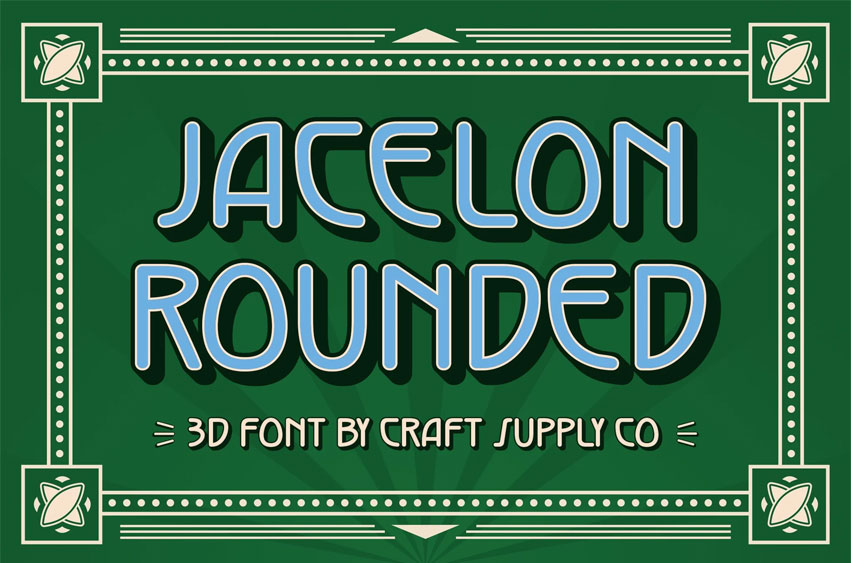
Jacelon Rounded Font
Jacelon Rounded Font Art Deco Inspired with Rounded, Geometric Elegance. Jacelon Rounded 3D is a modern sans-serif display font that blends the classic sophistication of Art Deco with smooth, rounded, geometric forms. The sharp lines of the Art Deco influence combined with the soft curves and rounded edges create a distinct contrast, offering a contemporary and chic appearance.
Dynamic 3D Effect for Added Dimension The 3D effect applied to each character in Jacelon Rounded 3D enhances its visual depth and impact. This dynamic feature gives the font a captivating presence, making it stand out in any design. The added dimension elevates its aesthetics, giving it a bold, sophisticated appeal while maintaining a modern, clean look.
Versatile, Stylish, and Contemporary. With its perfect blend of geometric precision and rounded softness, this art deco font is a highly versatile font that can be used in a variety of design projects. It combines vintage appeal with futuristic minimalism, making it a perfect choice for both retro-inspired and modern designs.
Ideal for Creative Branding and Dynamic Designs, Jacelon Rounded 3D is ideal for projects that aim to captivate and make a statement. Whether you’re working on branding, event posters, modern packaging, or any other creative endeavor, this font adds sophistication and uniqueness to your design.